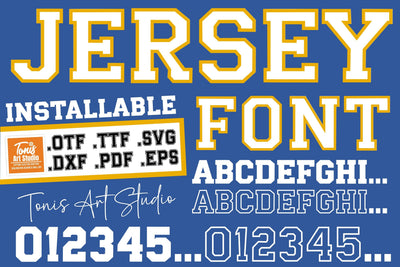
Jersey Outline Font, Varsity Font svg, otf, ttf, Sport Font
JERSEY Font - OTF TTF SVG DXF EPS PDF | Bold and Outline Sports Letters | Custom Cut Files for Cricut & Silhouette | DIY Jersey Designs
Bring a sporty and dynamic look to your designs with the JERSEY Font! This unique font combines bold capital letters and outline lowercase letters that perfectly fit together, offering endless design possibilities. Whether you're crafting DIY sports jerseys, team posters, or school spirit wear, this versatile font is designed to stand out.
- Capital letters are bold, while lowercase letters are outline versions that align with the uppercase letters.